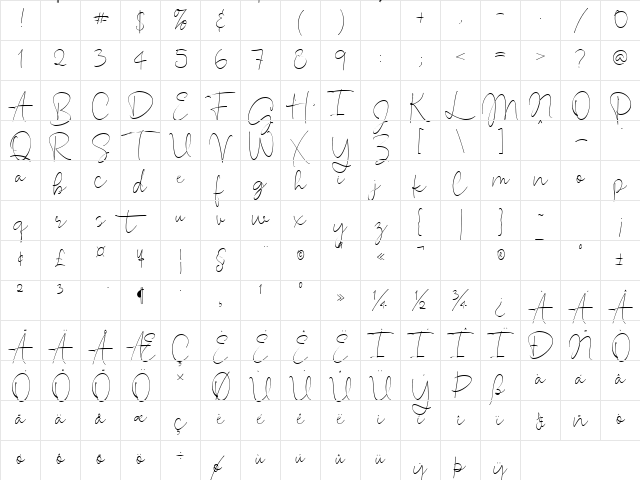
Complete Vesperiand Regular glyph index. Displaying only characters natively supported by Vesperiand Regular font.
Vesperiand is a composed and adaptable typeface that performs quietly and consistently across a wide range of design contexts.